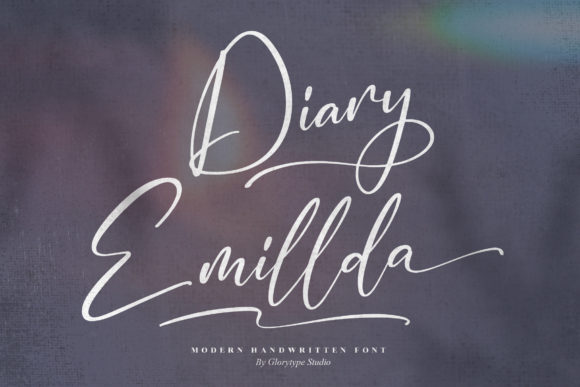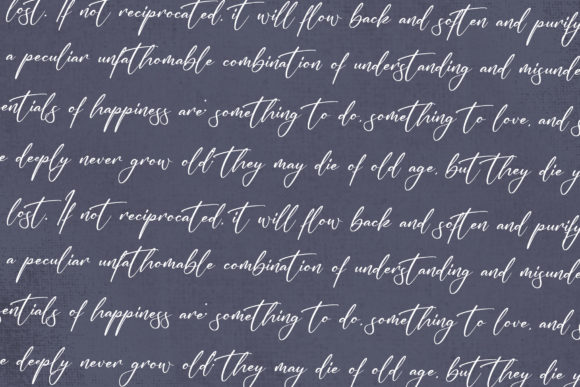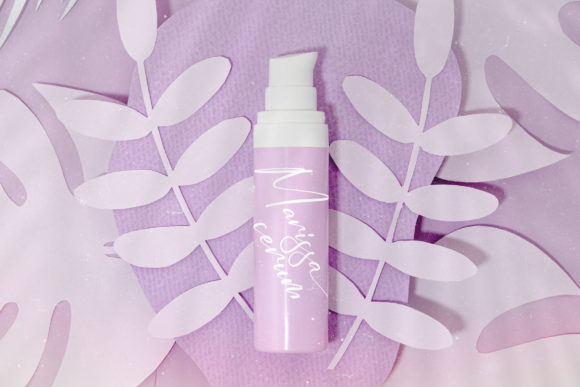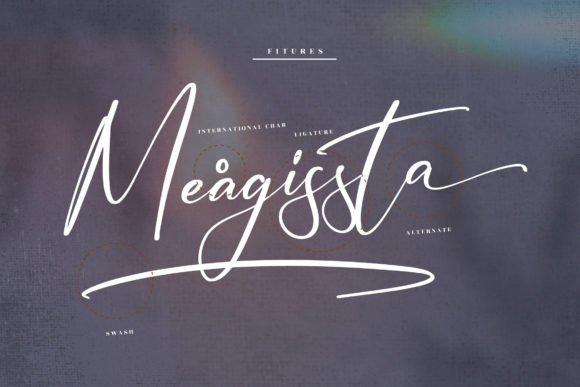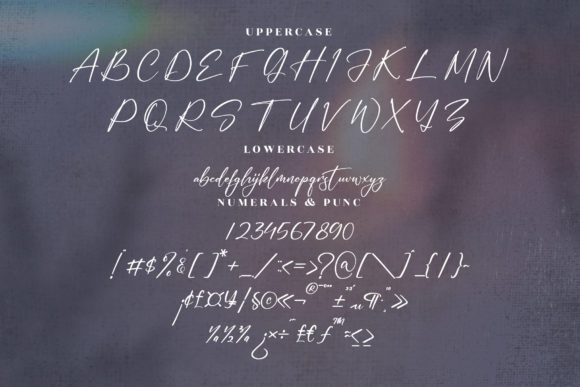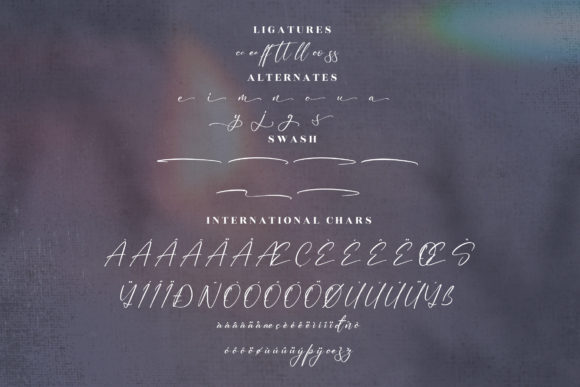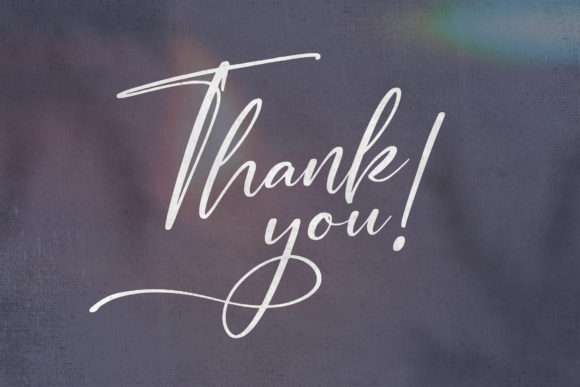
Diary Emillda Font
Diary Emillda is an elegant and thin lettered script font. It is PUA encoded which means you can access all of the glyphs and swashes with ease!